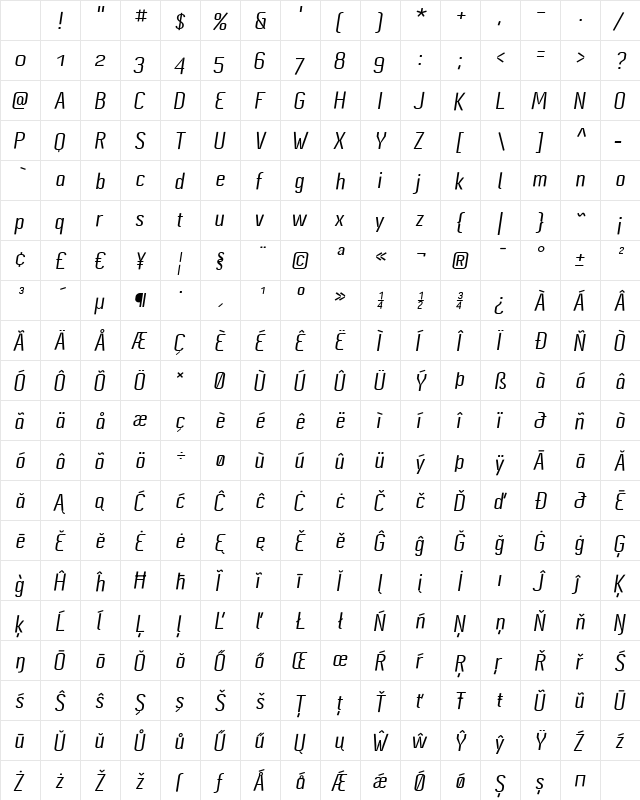
Complete Cynapse Pro OSF Bold Italic glyph index. Displaying only characters natively supported by Cynapse Pro OSF Bold Italic font.
Cynapse Pro OSF is a composed and adaptable typeface that performs quietly and consistently across a wide range of design contexts. The slanted form adds forward momentum and visual energy. Its bold stroke weight gives it real presence on the page.
Pro Tip: Use Cynapse Pro OSF for emphasis, pull quotes, and subheadings where its slanted energy can add rhythm to the layout.